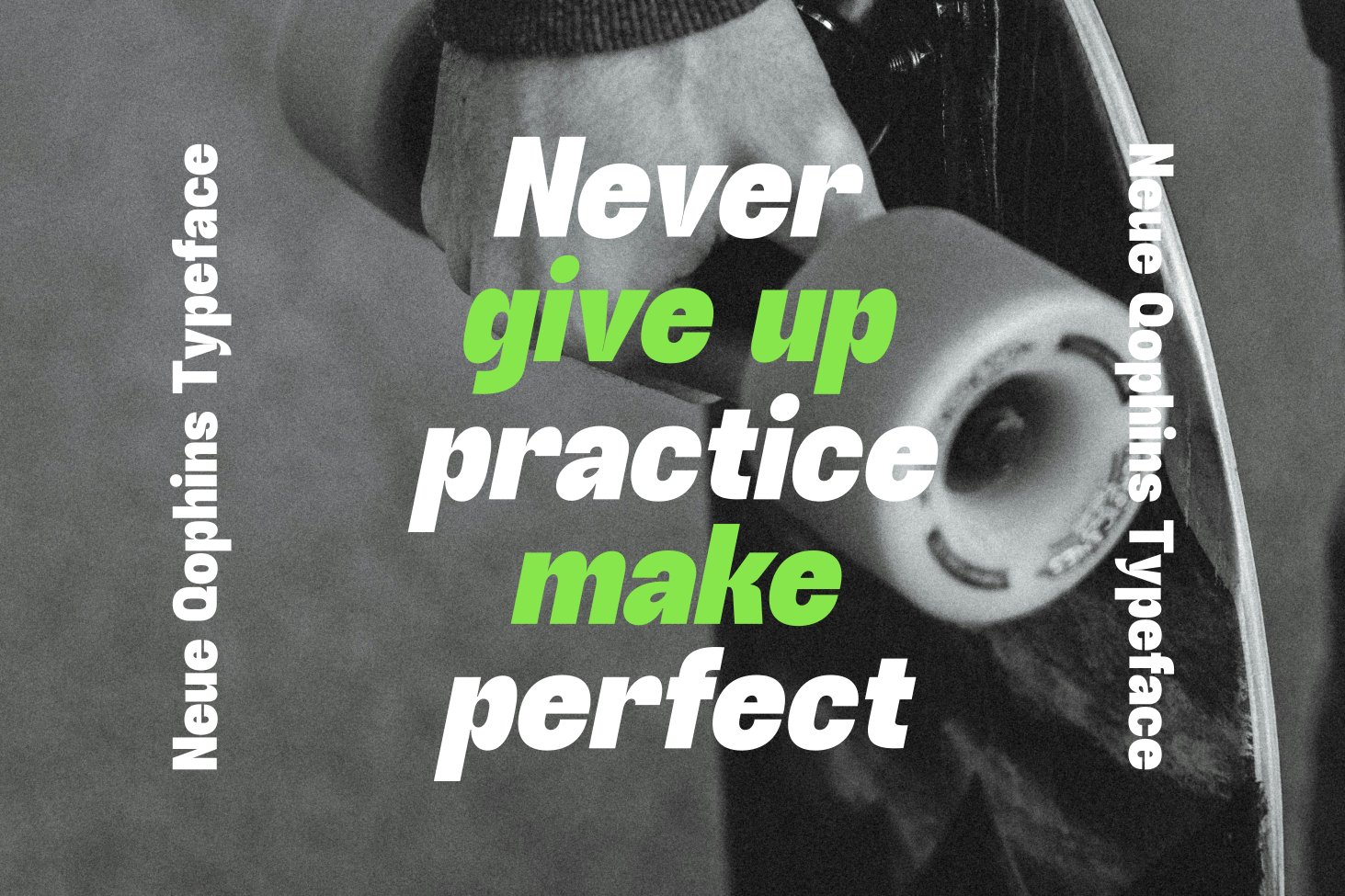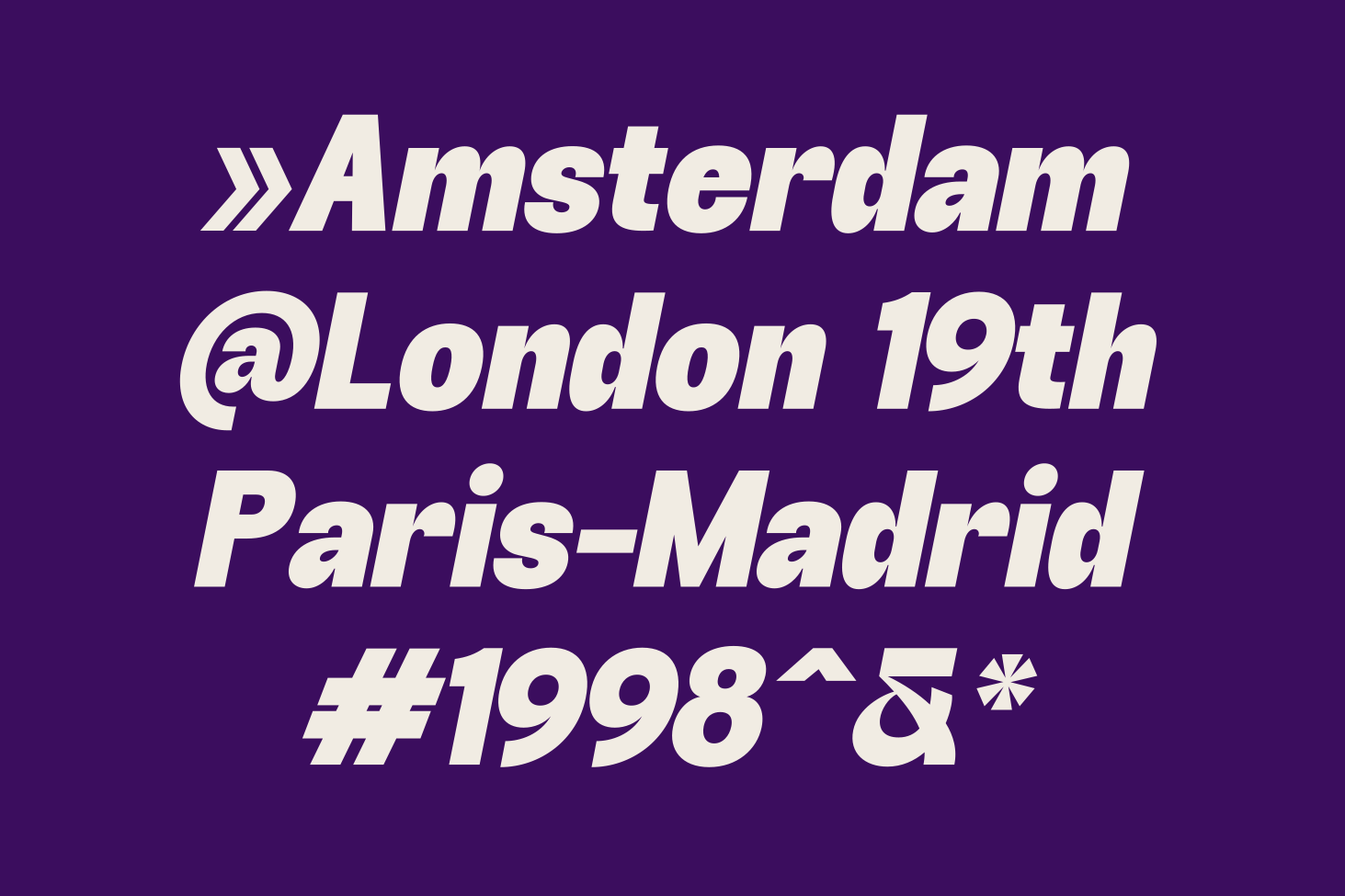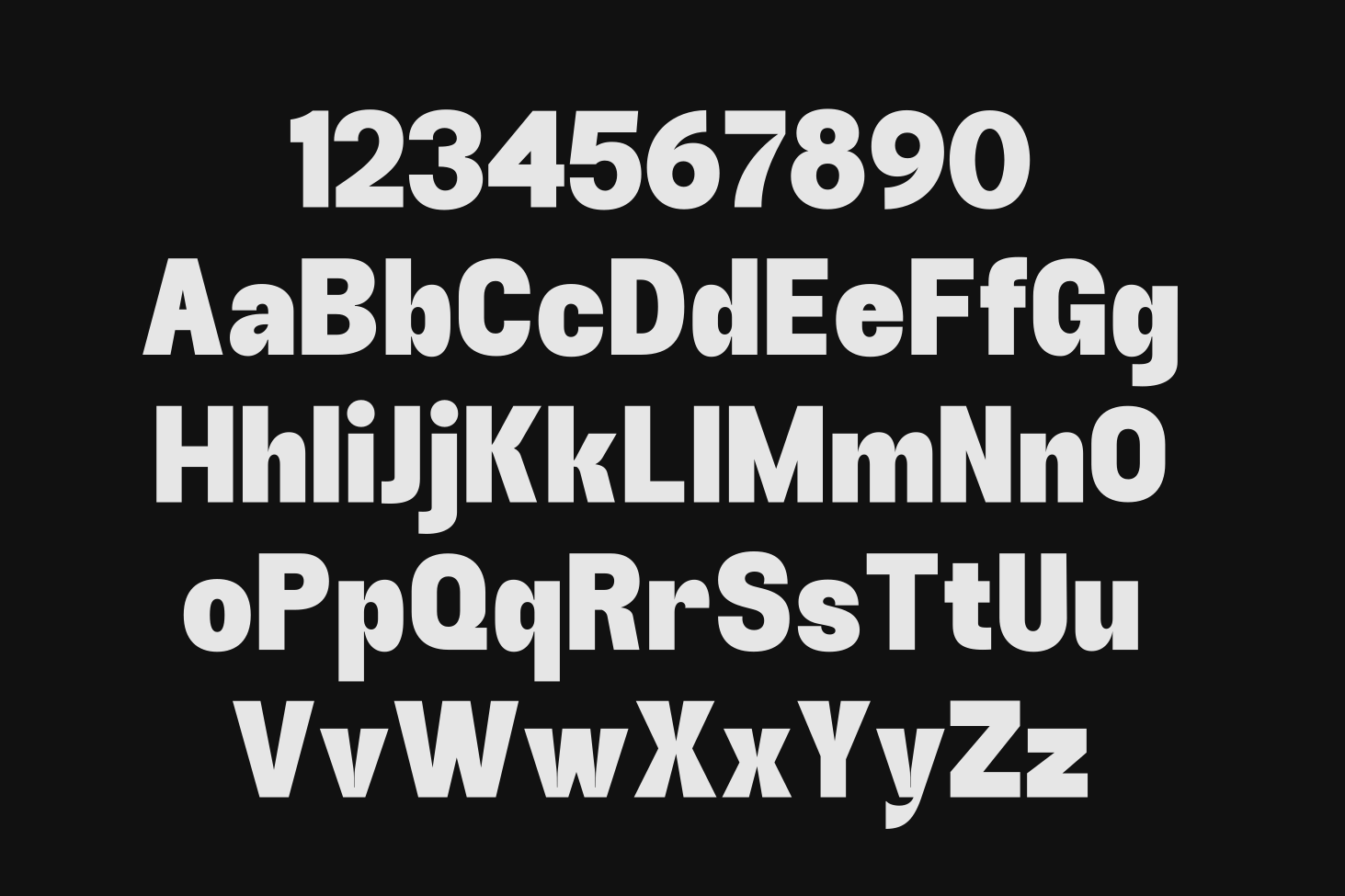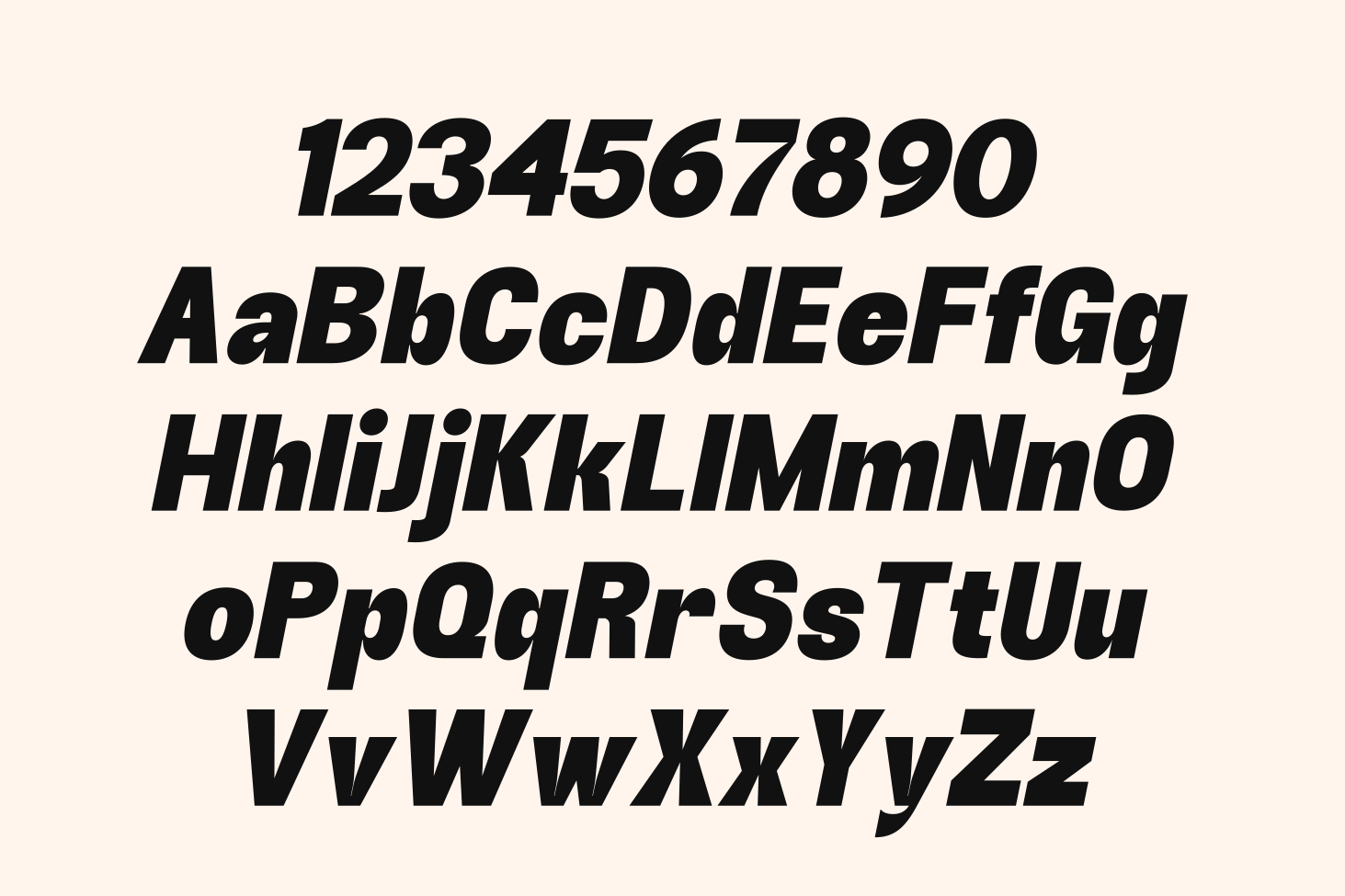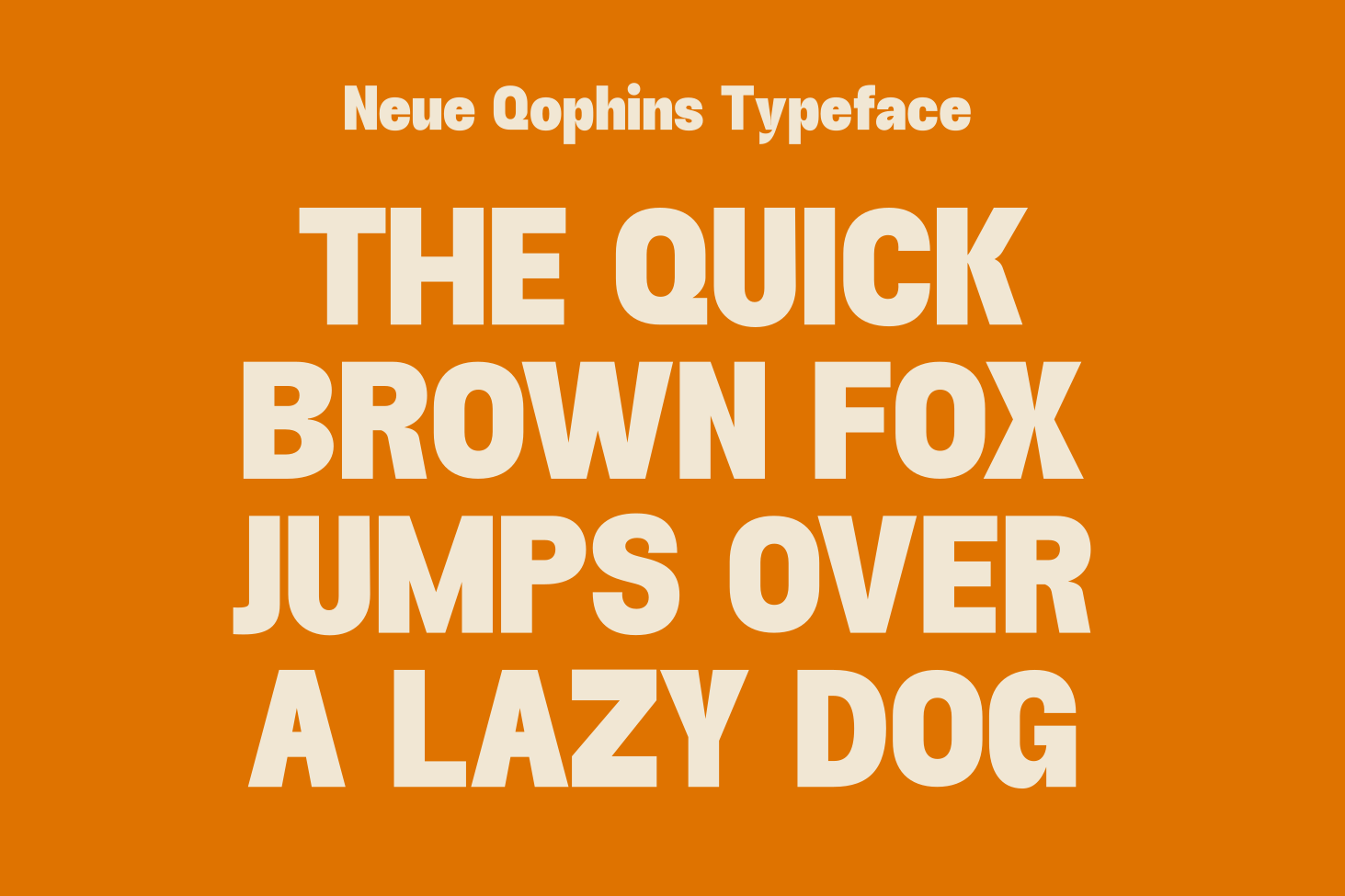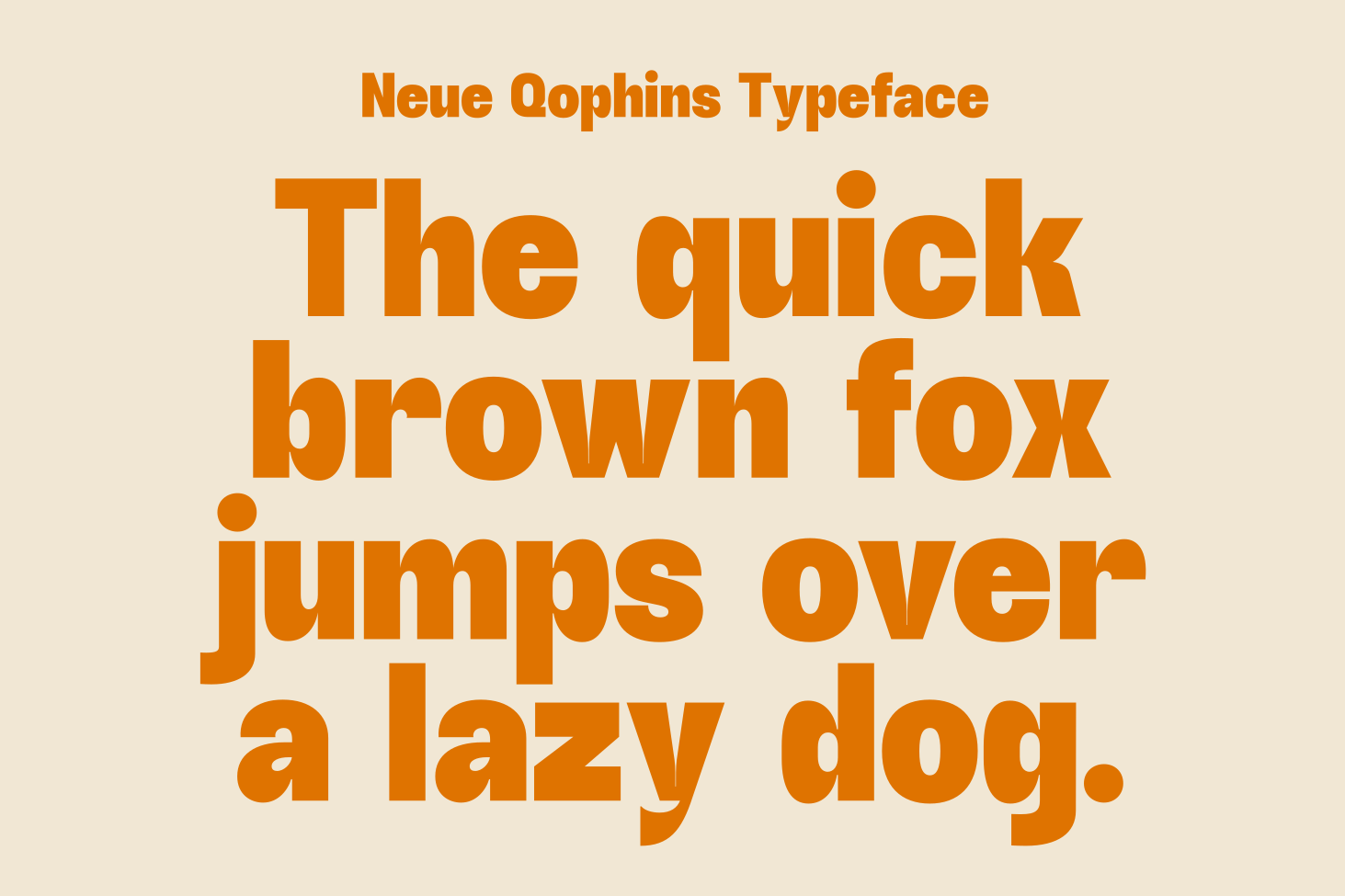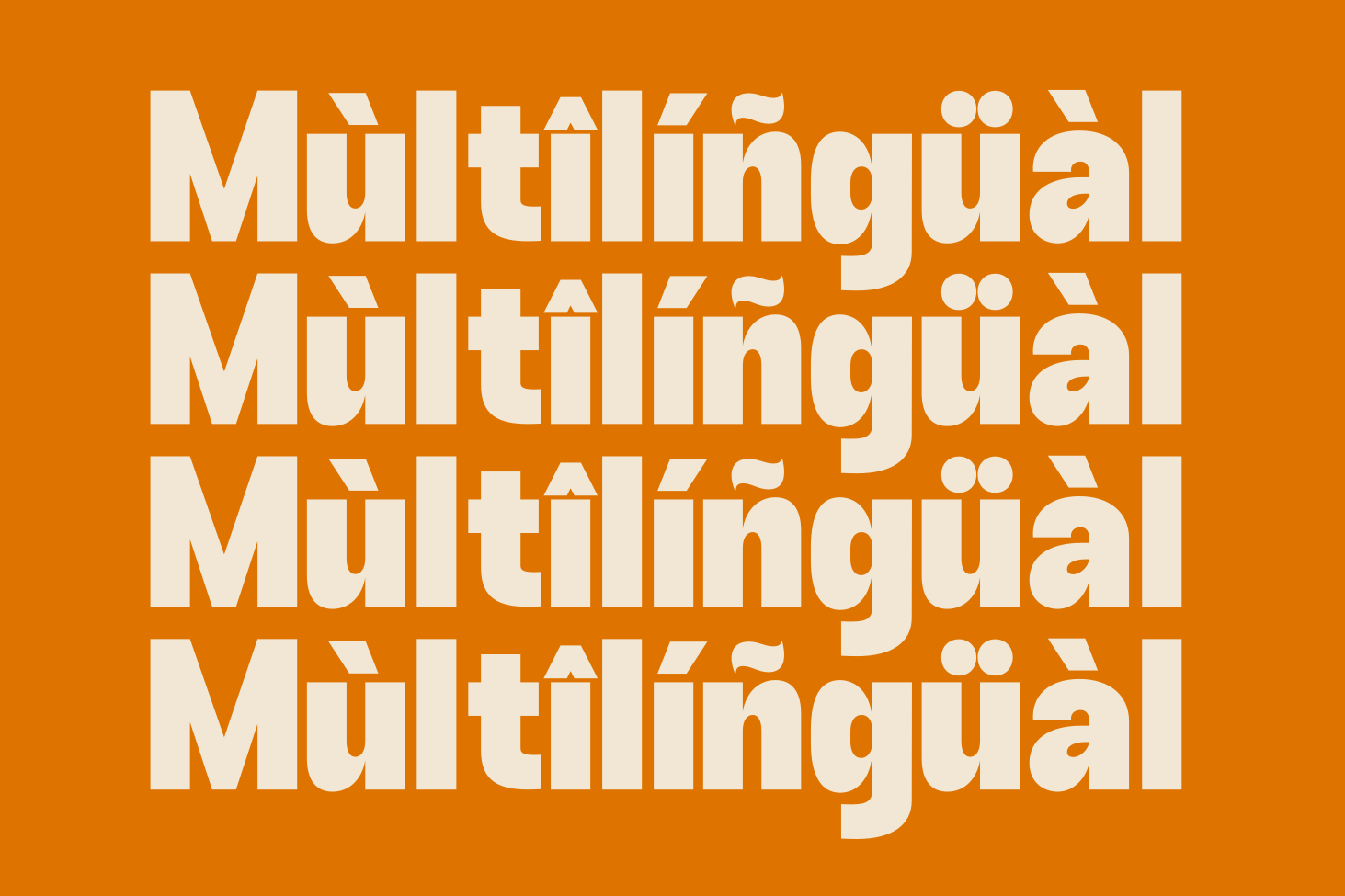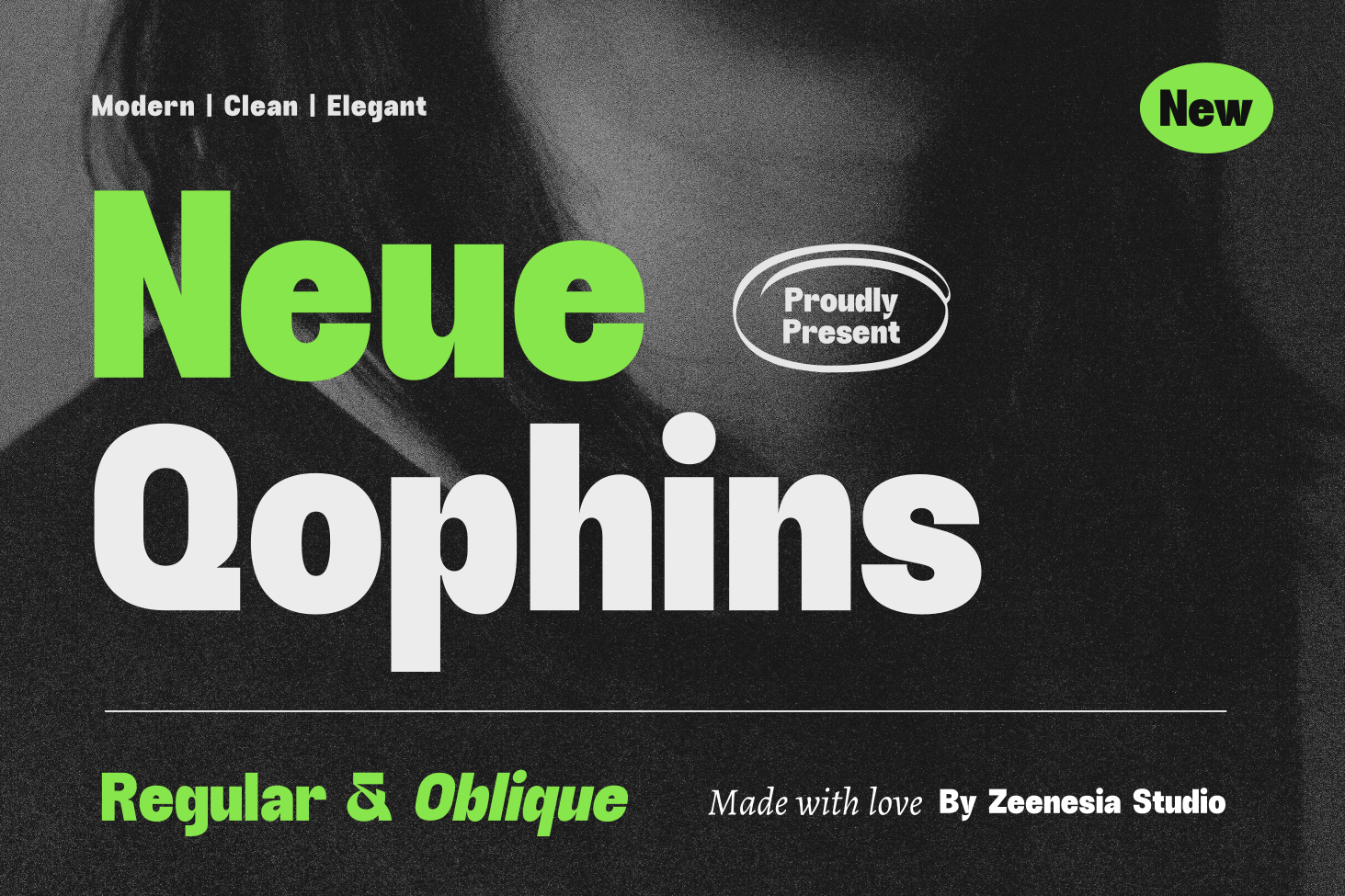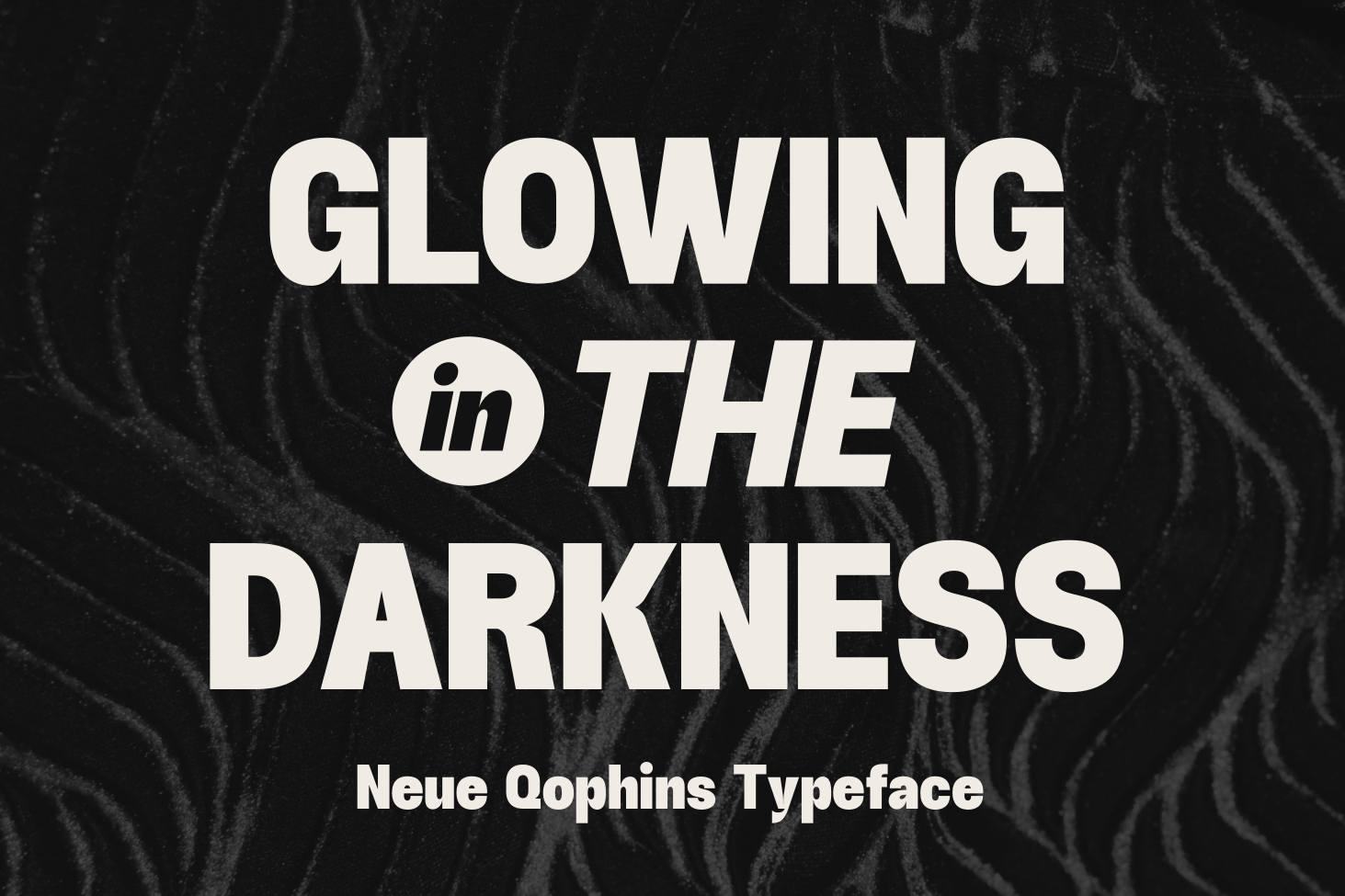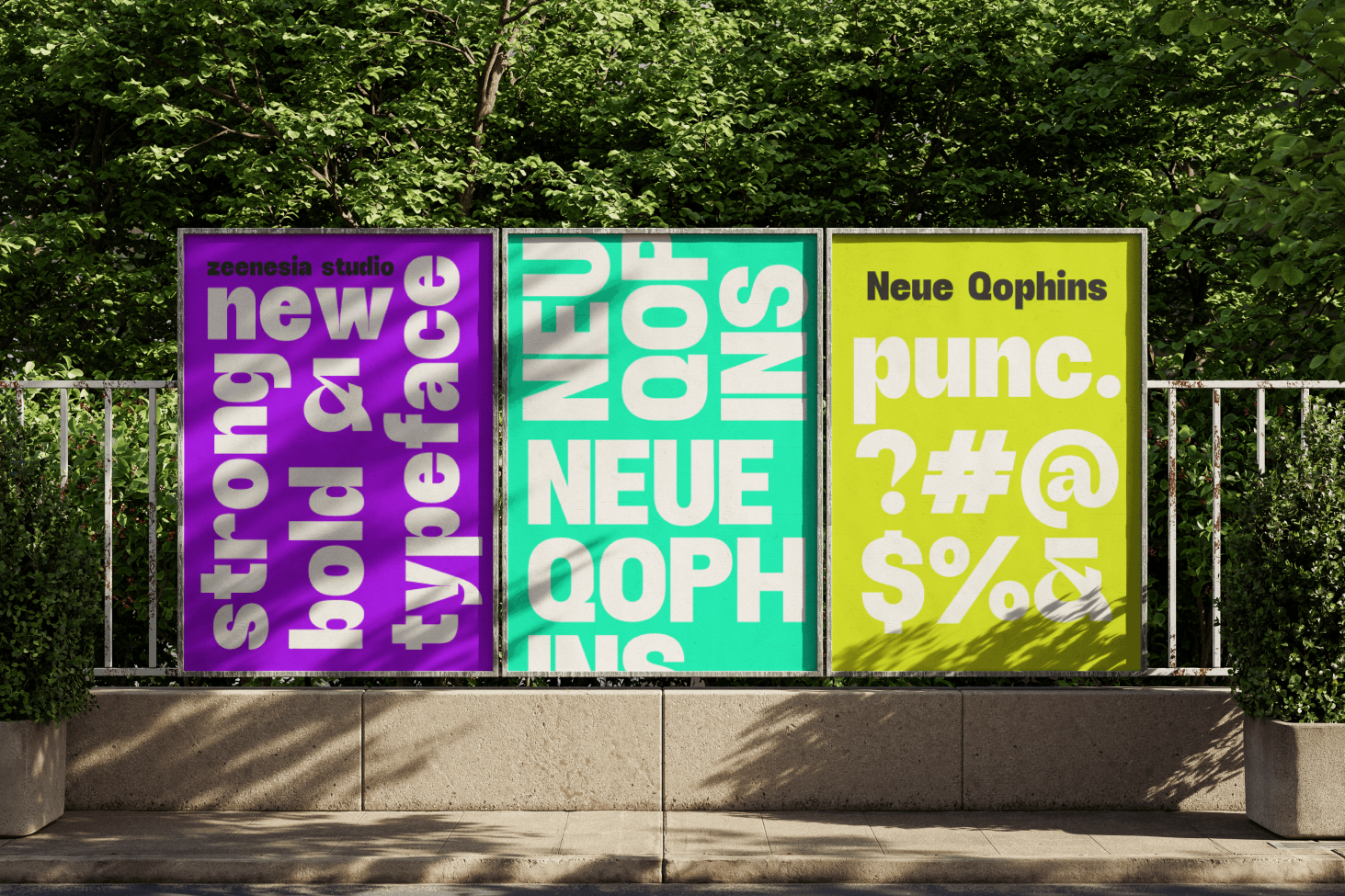
Neue Qophins
zeenesia
Neue Qophins created by zeenesia is a modern, bold, and striking typeface that commands attention with its strong presence and contemporary design. With a robust Bold weight complemented by its Regular and Oblique styles, Neue Qophins is versatile enough to be used across a variety of projects, from branding to editorial design.